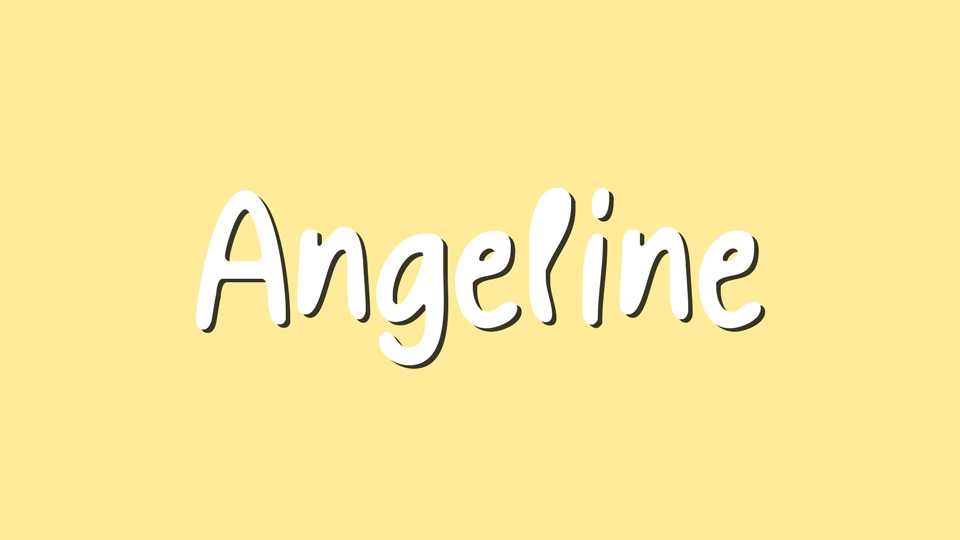
Download c font, a simple hand lettered typeface that looks casual and playful. Handcrafted with care, Angeline font is perfect for handwritten notes, sweet greeting cards, beautiful quotes, and stand-out branding as well.